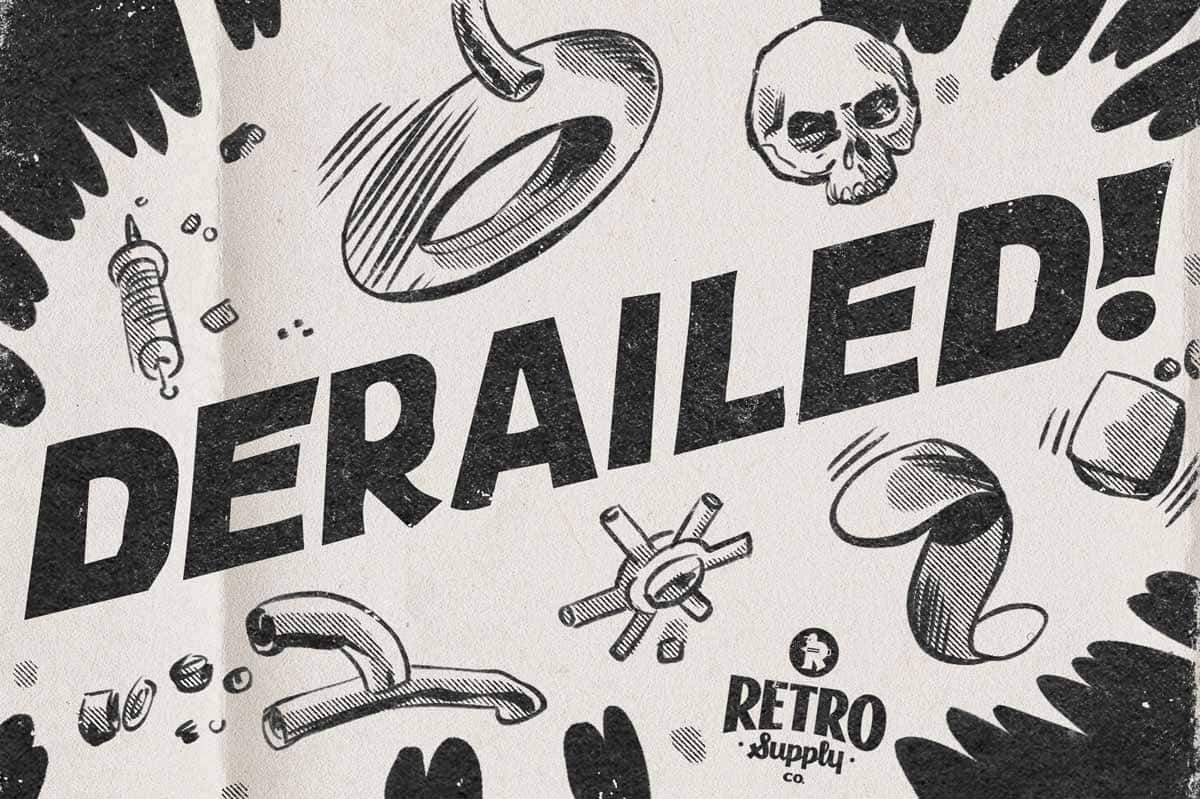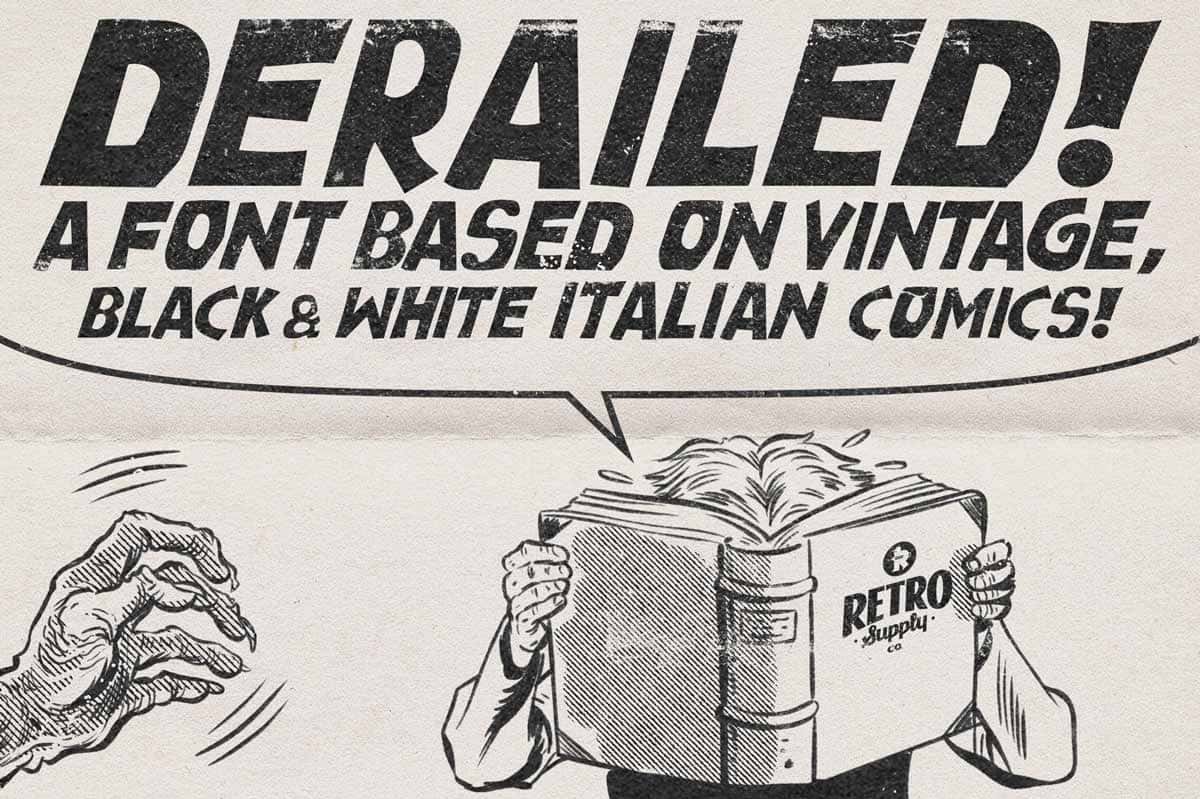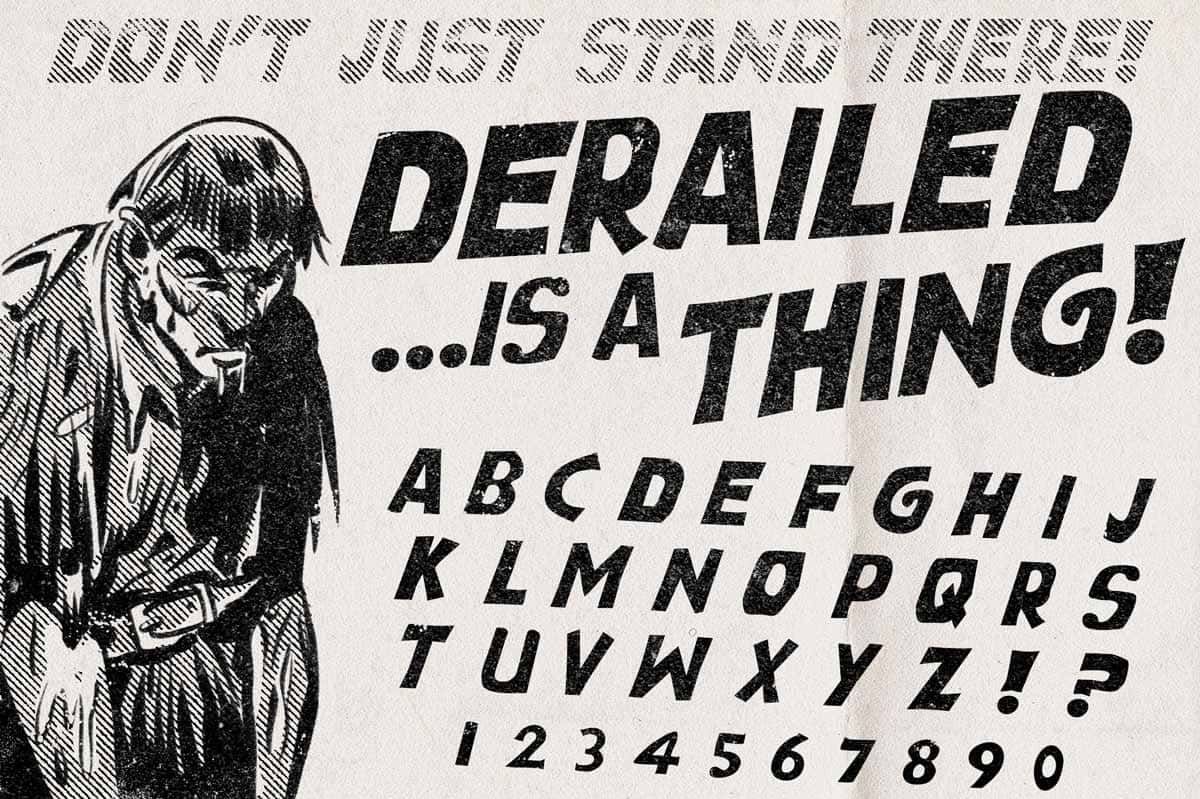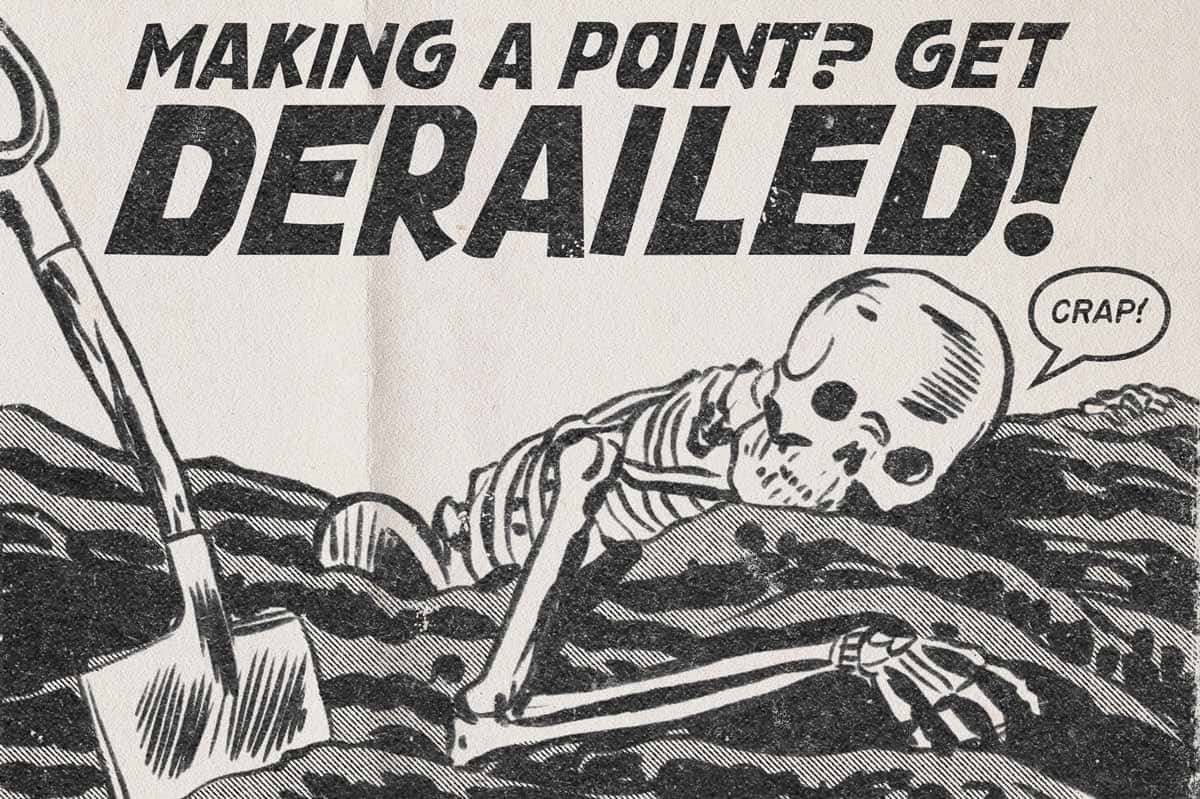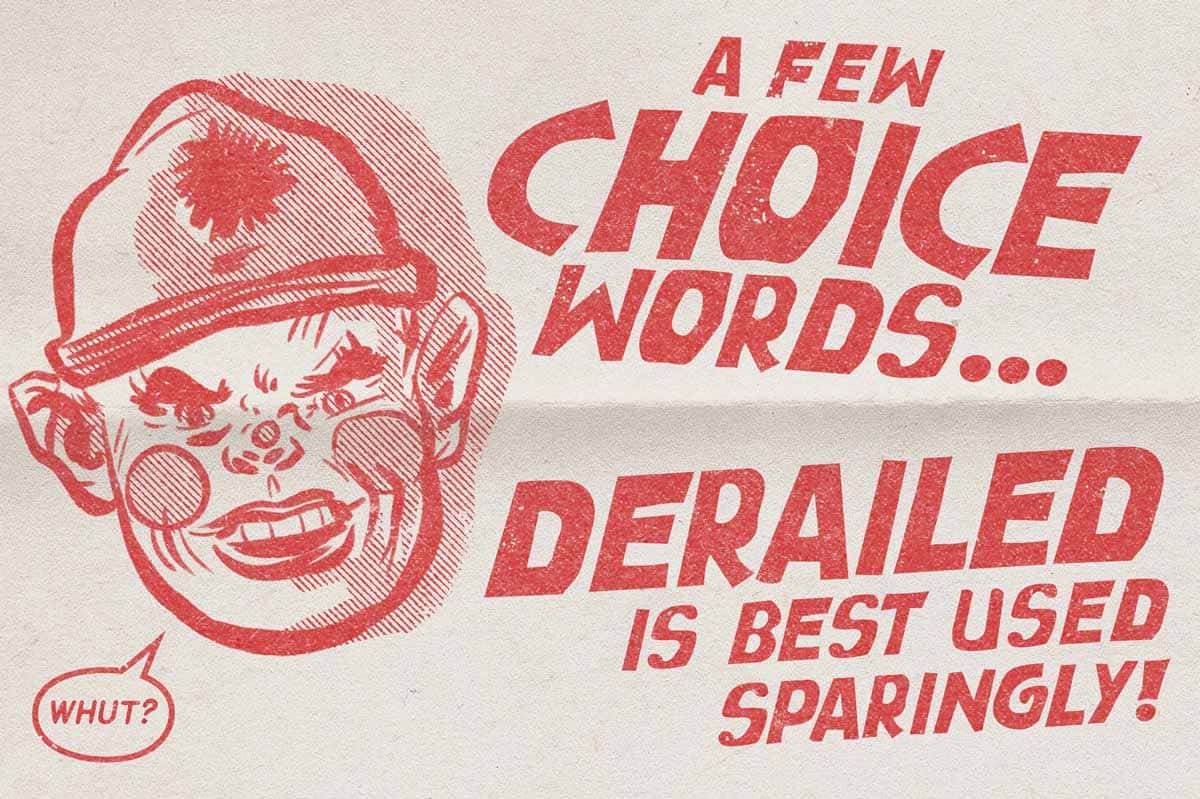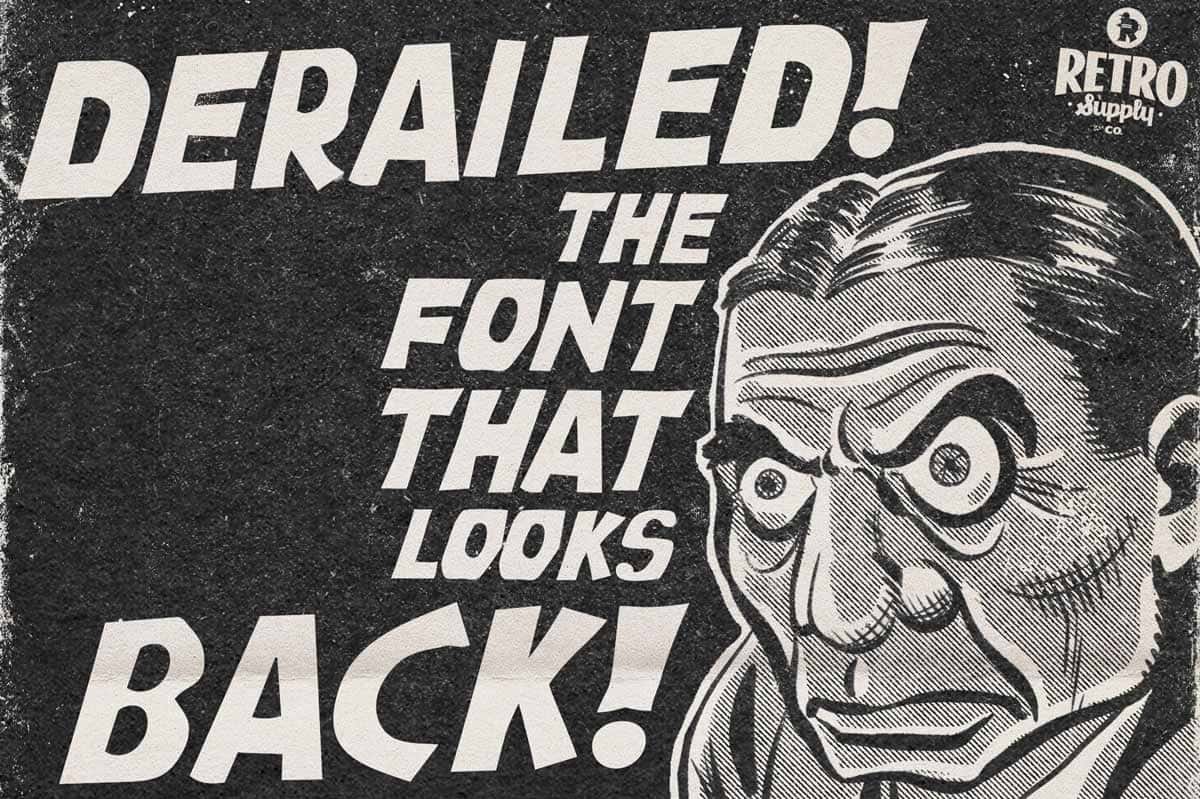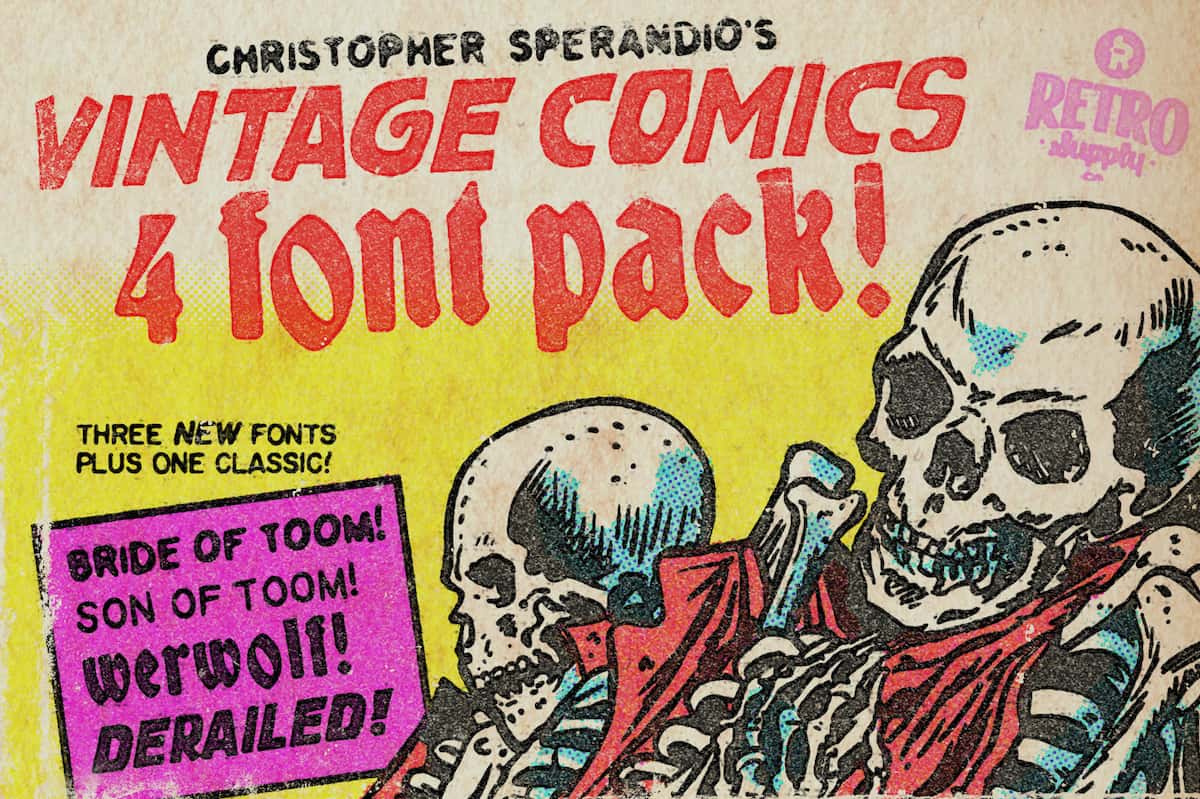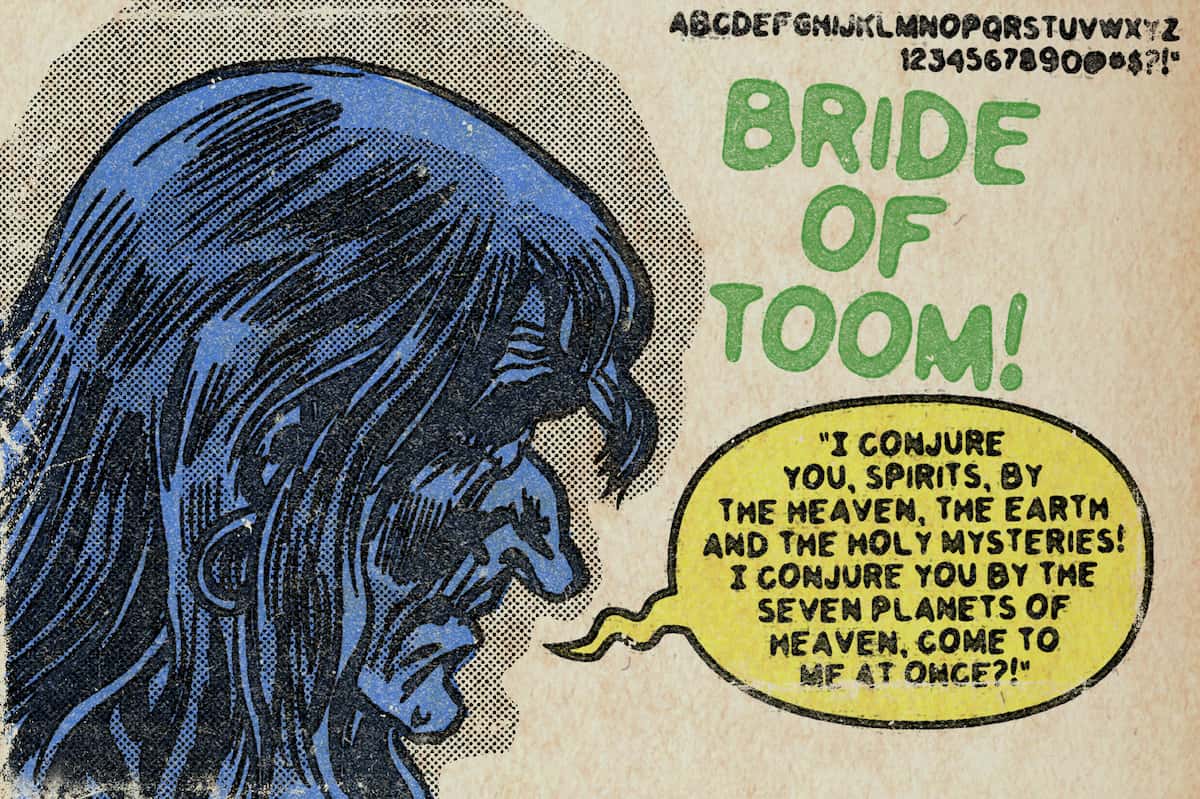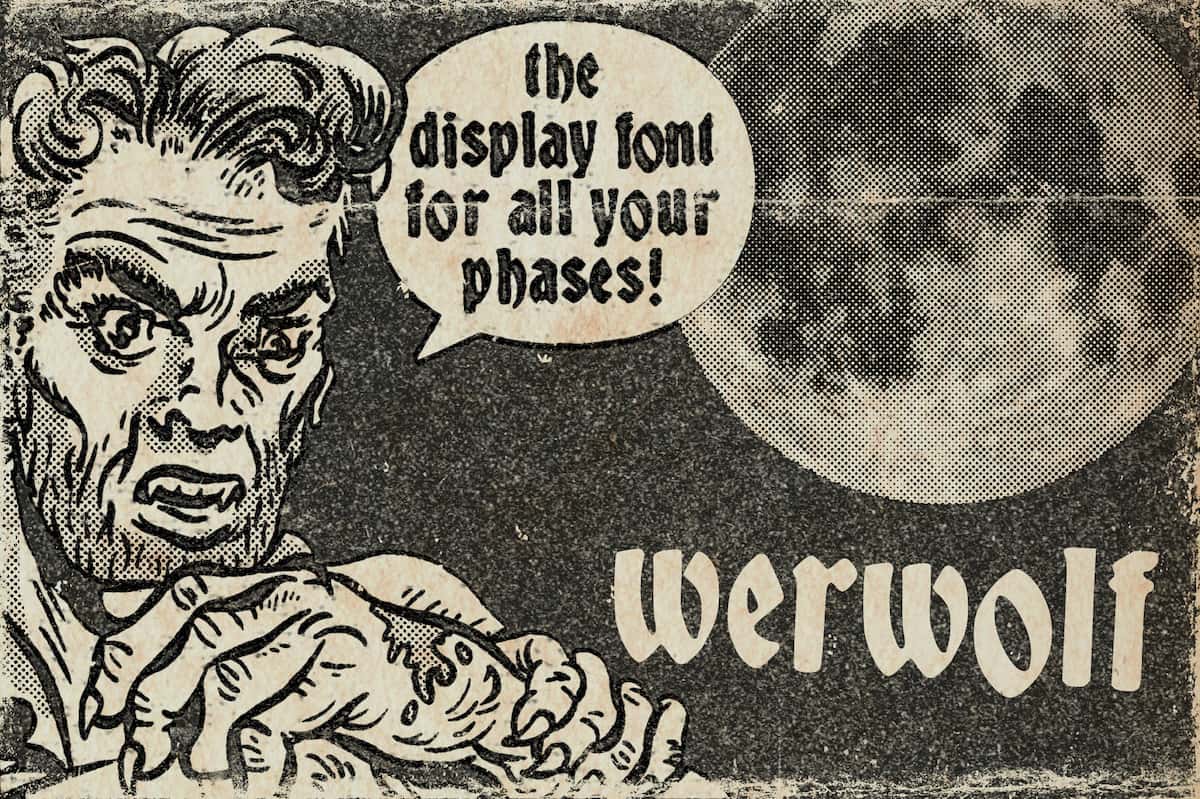
Vintage Comic Font Pack
Love our popular TOOM font? Take your work further with Christopher Sperandio's Vintage Comics 4 Font Pack that includes Son of TOOM, Bride of TOOM, Werwolf, and DERAILED!
Each font in the pack is designed to expand your comic lettering capabilities. Let's break down each of the fonts.
Son of TOOM. The handmade, low-key riff on its namesake. Son of TOOM compliments the original TOOM with a lighter touch and a bit more lividity.
Bride of TOOM. The meaty soulmate of TOOM. This font is excellent for headlines and brings emphasis and intensity to dialogue.
Werwolf. Created from antique wood type purchased in Leipzig in 2019. The wood type was printed, cleaned up in Photoshop, and converted into a vintage comic font perfect for stories of horror, mystery, and strange occurrences.
DERAILED! The spiritual essence of dark Italian comics produced in Italy forty or fifty years ago. Called “Fumetti neri,” these comics were stark black and white and featured vampires, thieves, and killers. DERAILED! is best used like truffle oil — a little goes a long way.